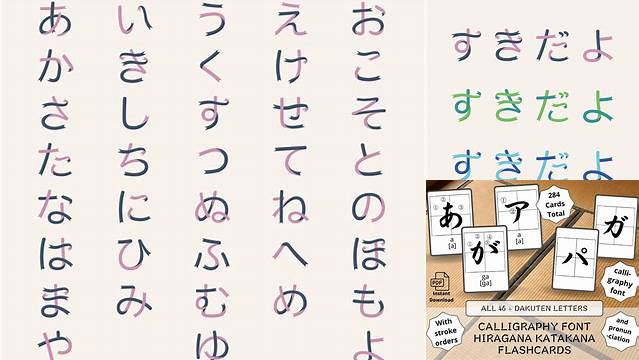
Create Your Own Hiragana Fonts Instantly
Hey guys! Ever wanted to jazz up your Japanese learning journey or maybe add a unique touch to your creative projects? Well, you're in luck! Today, we're diving into the awesome world of hiragana fonts generators. We're going to explore how you can create custom fonts, customize them to your heart's content, and use them in various ways. Get ready to unleash your inner font designer! Let's get started, shall we?
2. What Exactly is a Hiragana Fonts Generator?
Alright, before we get our hands dirty, let's get the basics down. A hiragana fonts generator is a tool—usually online—that lets you create fonts based on the hiragana script. You provide the design, and the generator transforms it into a usable font file. Think of it as a digital font factory specifically for hiragana characters. This is super cool because it lets you bypass using pre-made fonts. The power of design will be on your hands now! These generators provide a fun way to experiment with different styles, from elegant and modern to quirky and playful. It's not just about the aesthetic; it's about making your Japanese learning materials, presentations, or creative projects stand out.
What's even cooler is that many generators allow you to customize the font's appearance, including the thickness of the strokes, the spacing between characters, and even the overall shape of the characters. This level of control means you can make a font that perfectly suits your needs. Perhaps you need a clean font for textbooks, a bubbly one for children's materials, or a sleek one for a website. With a hiragana font generator, the possibilities are endless.
These generators often come with user-friendly interfaces, making the font creation process accessible even if you're not a design expert. You can choose from various templates, modify existing designs, or start from scratch with a blank canvas. The result? A personalized font that's uniquely yours. So, whether you're a language learner, a graphic designer, or just someone who loves playing around with fonts, a hiragana font generator is a fantastic tool to have in your arsenal.
3. Why Use a Hiragana Font Generator? Benefits and Advantages
So, why bother with a hiragana font generator instead of using existing fonts? Well, there are many cool reasons, guys! First off, it lets you express your creativity. You are not stuck with what's already out there. You can design your own fonts that are unique and reflect your style. This is a game-changer for anyone who wants to add a personalized touch to their Japanese-related projects. Imagine crafting study materials that are instantly recognizable and engaging because of the font you created.
Customization is another major benefit. You have complete control over every aspect of your font. You can tweak the weight of the strokes, adjust the spacing, and even change the character's overall shape. This level of customization is something you won't find with pre-made fonts. Want a font that's easy to read for beginners? You can do that. Need a font that matches your brand's aesthetic? Easy peasy. A hiragana font generator allows you to perfectly tailor your font to suit your specific needs.
Then there's the educational aspect. Using a hiragana fonts generator can also enhance your Japanese language learning journey. Designing your own characters can help you understand the stroke order and structure of each hiragana character better. It's a fun and interactive way to engage with the Japanese writing system and reinforce your knowledge. Plus, creating your own font can be a great memory aid, helping you remember the characters more easily.
Finally, it's a fantastic way to add a unique flair to your projects. Whether you're creating a website, designing a presentation, or working on a creative piece, a custom hiragana font can make your work stand out. It shows that you put in extra effort, that you care about the details, and that you're not afraid to be different. So, if you want to stand out from the crowd, a hiragana font generator is your secret weapon!
4. Essential Features to Look for in a Hiragana Font Generator
Alright, so you're ready to dive in, but what should you look for in a hiragana fonts generator? Here's a rundown of the essential features to make your font-creating experience smooth and enjoyable:
Customization Options: The ability to tweak the appearance of your font is crucial. Look for generators that allow you to adjust stroke thickness, character spacing, and character shape. The more control you have, the better. You should be able to modify individual characters. Some generators even allow you to import custom designs, which is a huge plus if you have specific ideas.
User-Friendly Interface: No one wants to spend hours wrestling with a complicated tool. A good generator should have a simple and intuitive interface, especially if you're not a design pro. The controls should be easy to understand, and the design process should be straightforward. A preview feature that shows you how your font looks in real time is a massive advantage.
File Format Support: Make sure the generator supports the font file formats you need, such as TTF or OTF. These are the standard formats that can be used across various operating systems and software. If you plan to use your font on a website, make sure it supports web font formats as well.
Don't be afraid to experiment, play around with different styles, and see what you can come up with. It's all about having fun and expressing your unique personality through your designs. Whether you're a language learner, a graphic designer, or just someone who loves fonts, there's a whole world of possibilities waiting for you. So, go out there, create, and have a blast! Happy font designing, everyone!